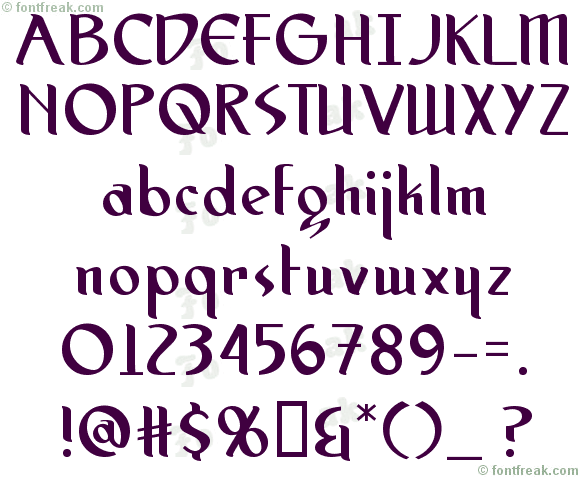
Spirit Medium
About Spirit Medium
The Spirit Medium font by Digital Graphic Labs is a captivating display typeface that strikes a balance between elegance and readability. Classified as a decorative font, it features fluid, organic shapes that evoke a sense of charm and personality. The strokes exhibit a medium weight, providing a pleasing contrast that enhances visibility while maintaining a stylish flair. The letterforms are well-spaced, ensuring that each character flows seamlessly into the next, which contributes to its overall legibility.
This font is particularly versatile and can be utilized in a variety of creative projects. It is an excellent choice for wedding invitations, where its whimsical nature adds a touch of romance. Additionally, Spirit Medium shines in the realm of movie posters, lending a unique visual identity that captures attention and intrigue. Restaurant menus can also benefit from its distinctive style, creating an inviting atmosphere that reflects the establishment's character. Content creators will find it useful for social media graphics, where a memorable font can enhance engagement and brand recognition.
What sets the Spirit Medium font apart is its ability to convey both personality and professionalism. Its unique design captures the essence of creativity while remaining functional for a variety of applications. For those seeking a distinctive typeface, the Spirit Medium font free download is an opportunity not to be missed, as it invites users to explore its potential across multiple platforms and projects.